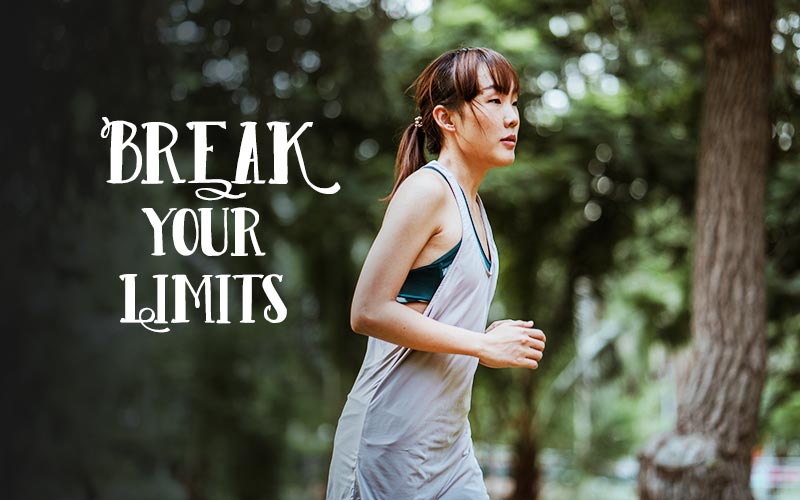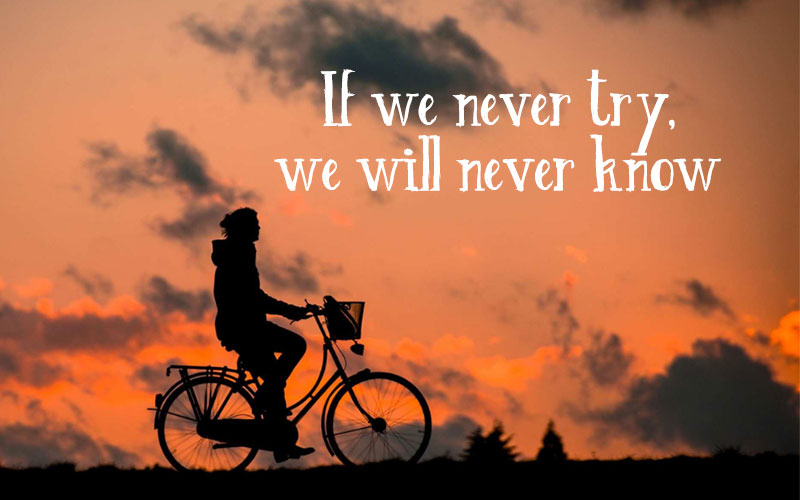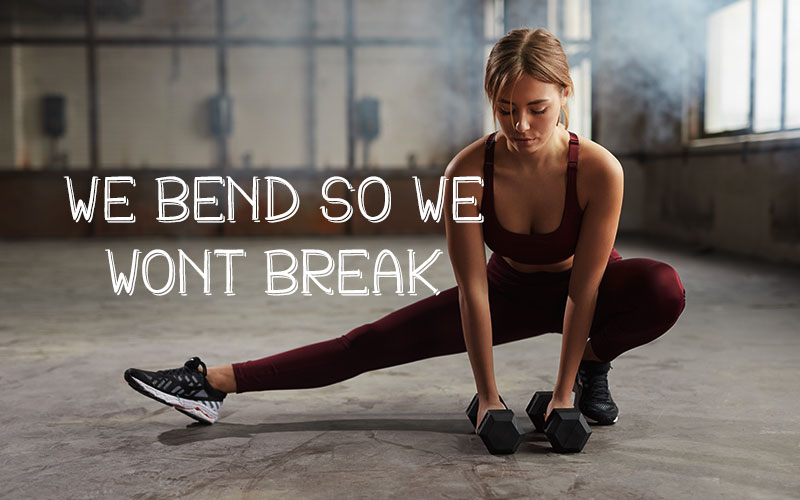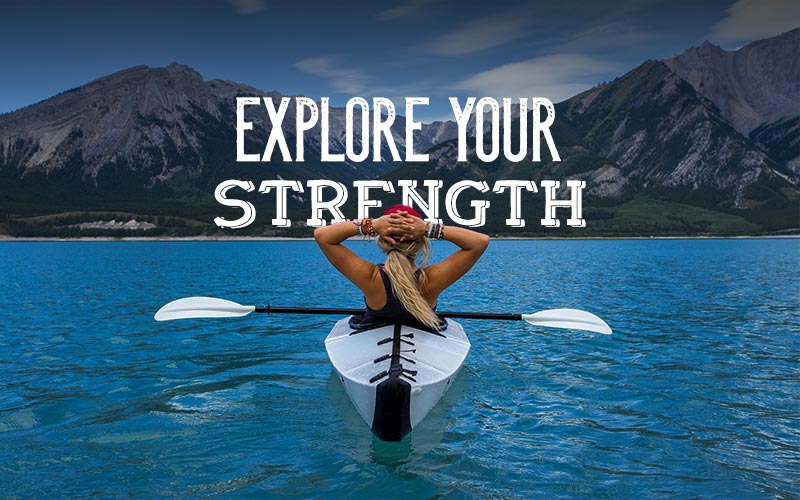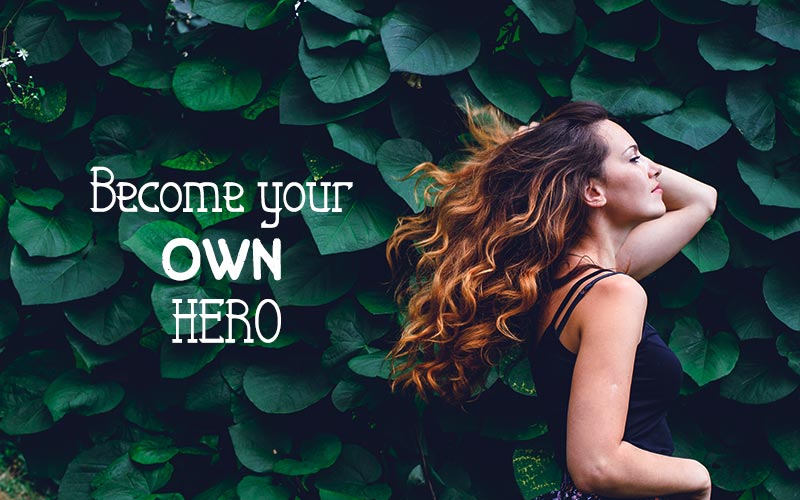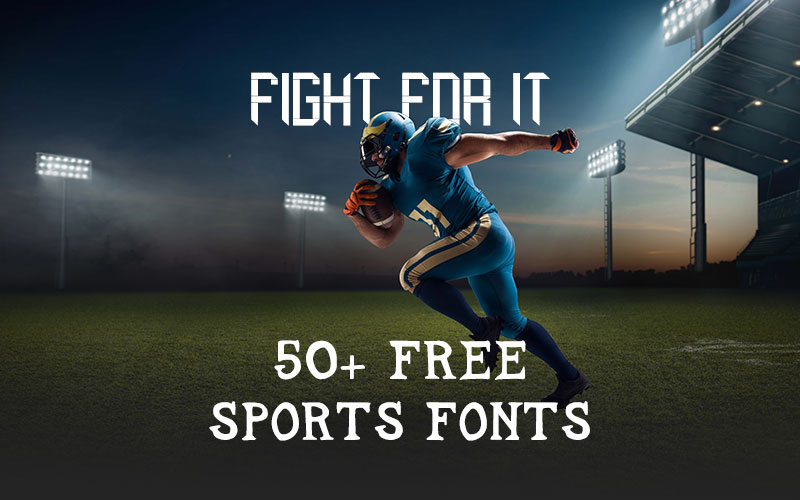
Handpicked Free Sports Fonts!
Introducing 50+ free Sports Fonts: The ultimate treasure trove for sports enthusiasts and designers alike! This comprehensive collection will revolutionize your sports-related projects, taking them to new heights.
Whether you’re crafting team logos, jerseys, posters, or website graphics, these fonts perfectly complement any sports-themed endeavor.
With over 50 unique and captivating fonts at your fingertips, your options are limitless.
From bold and dynamic letterforms to sleek and contemporary designs, each font captures the spirit of athleticism and competition while maintaining its own distinctive flair.
Whether you’re going for a retro, futuristic, or classic sports look, this collection has everything you need.
Don’t settle for ordinary typography. Elevate your sports design game today with 50+ Free Sports Fonts and unleash your creativity!
Vintage Sports Fonts